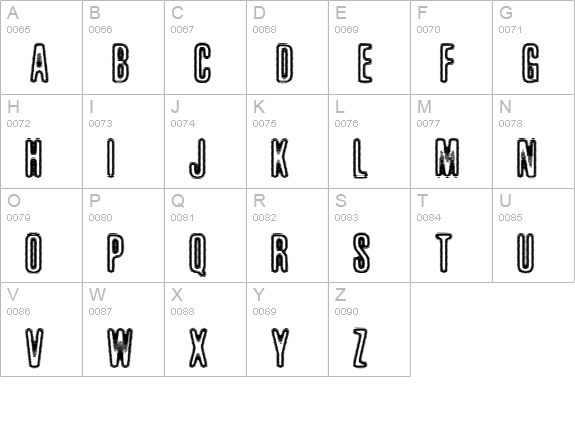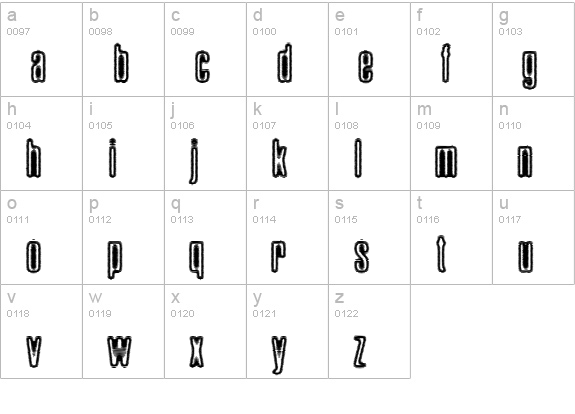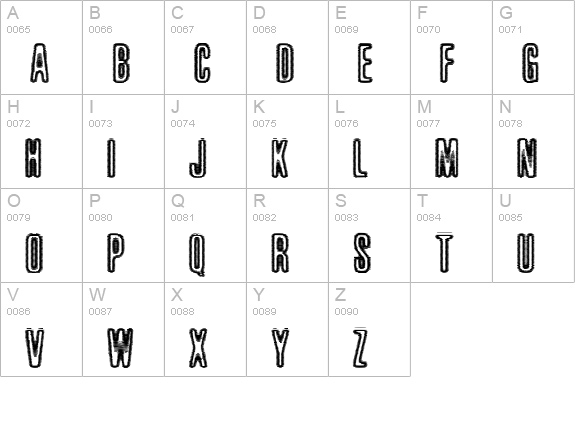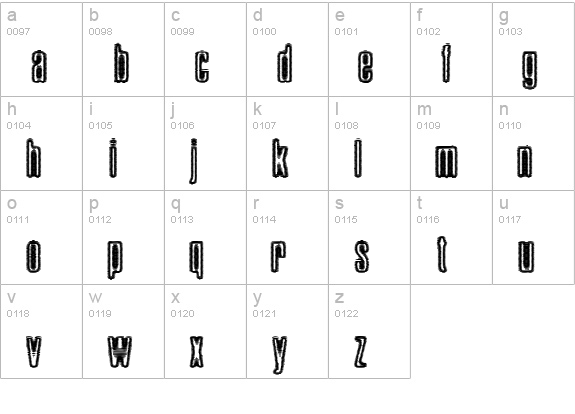
Brillo-Bold is a strong, high-contrast variant in the Brillo typeface family \xE2\x80\x94 well suited to headlines, attention-grabbing titles, and strong calls-to-action.
Brillo-Bold is a modern and sleek typeface that exudes confidence and strength. With its bold and eye-catching design, this font is perfect for making a statement in your designs. Whether you're creating a poster, logo, or heading, Brillo-Bold will help you stand out from the crowd. What's even better is that Brillo-Bold is completely free to download at FontsMarket.com. This means you can easily access this stylish font without any cost. Don't miss out on adding Brillo-Bold to your font collection and elevate your designs with its striking appeal.